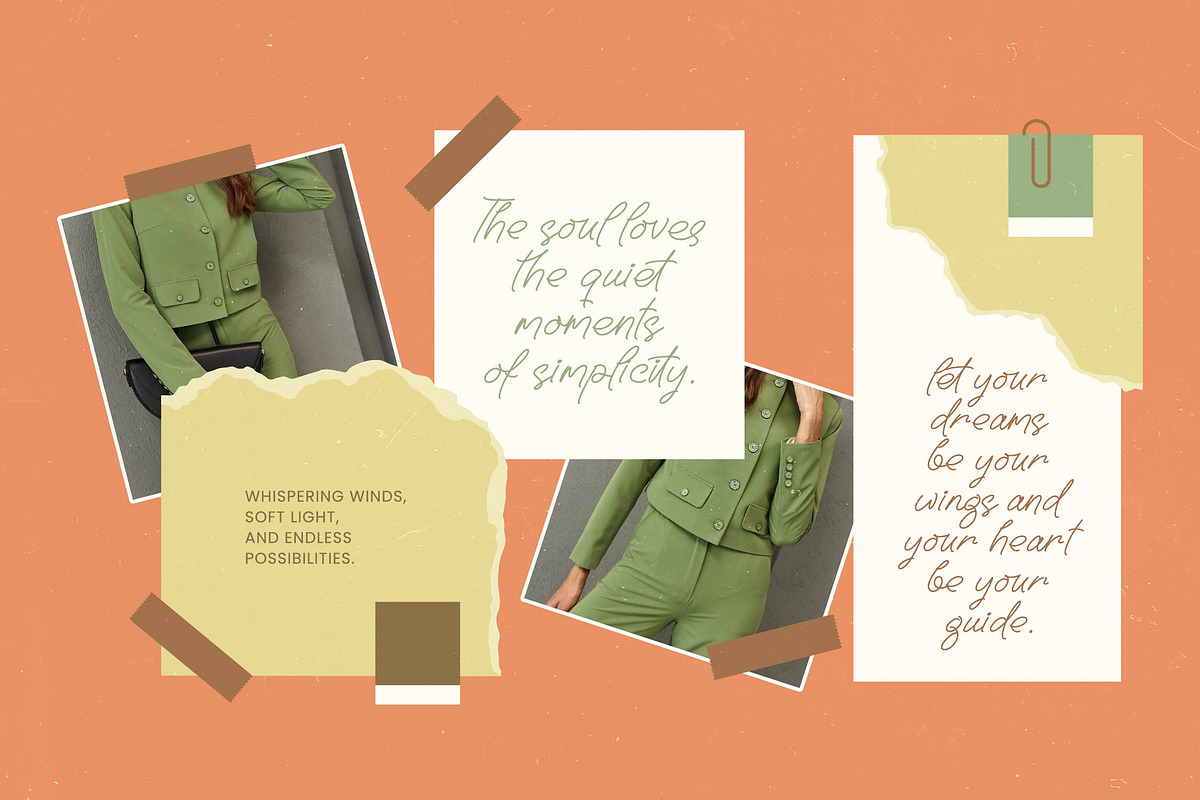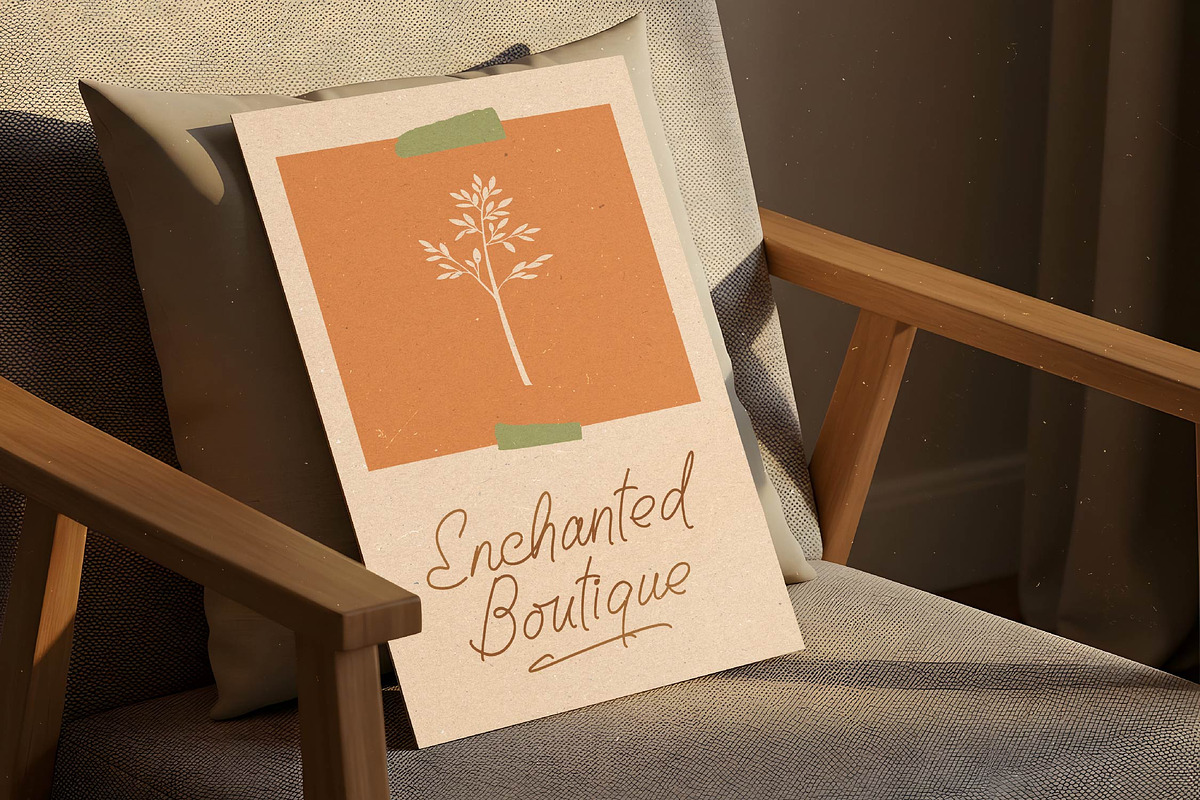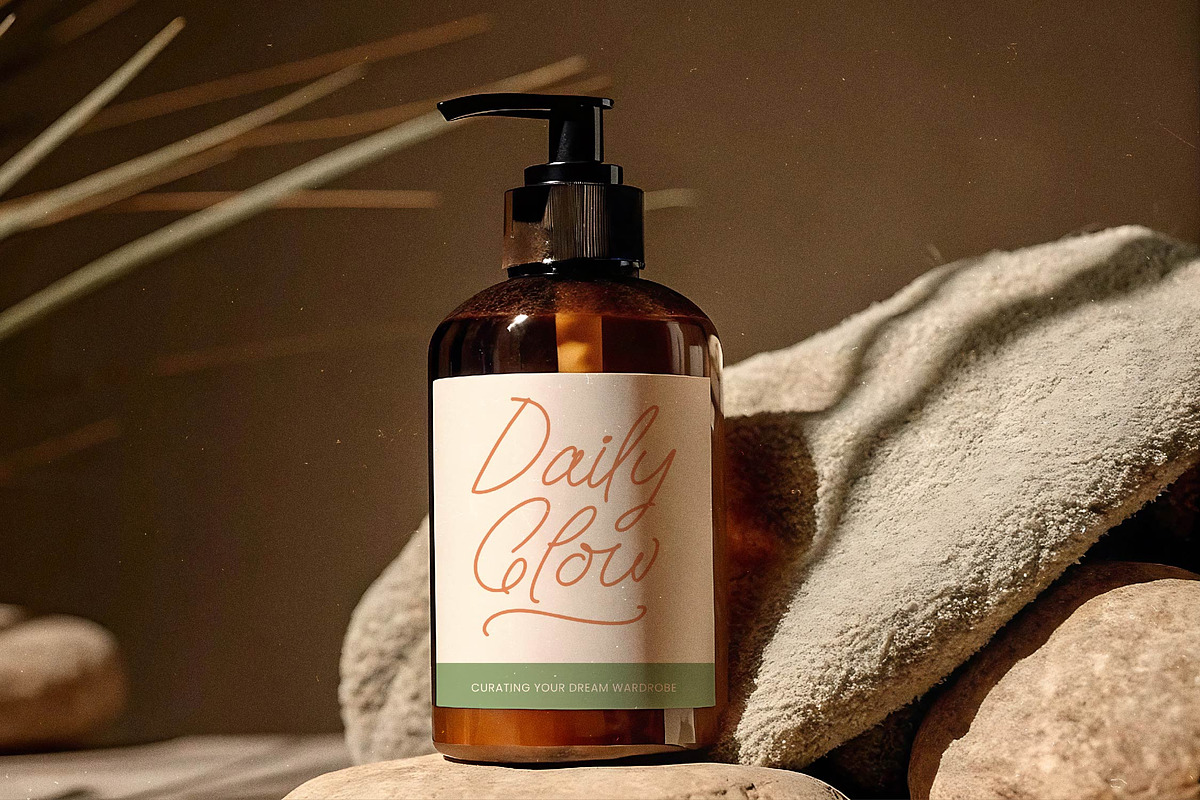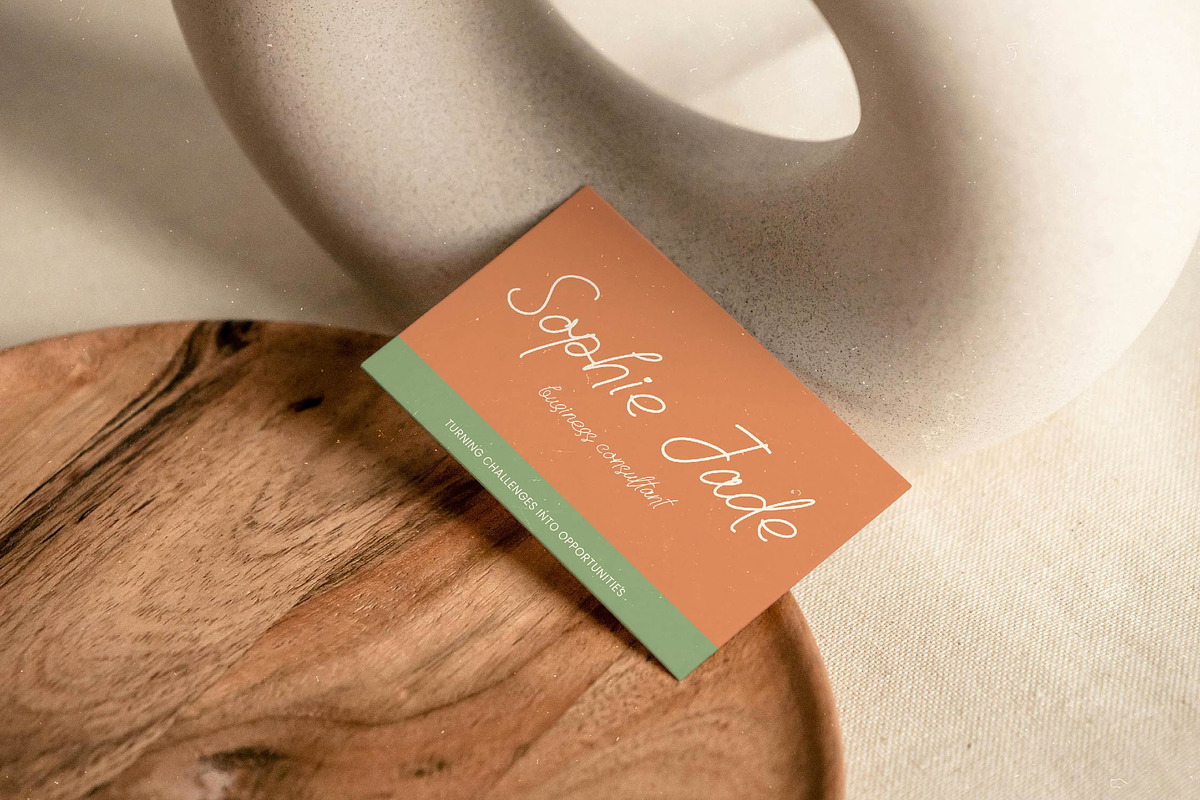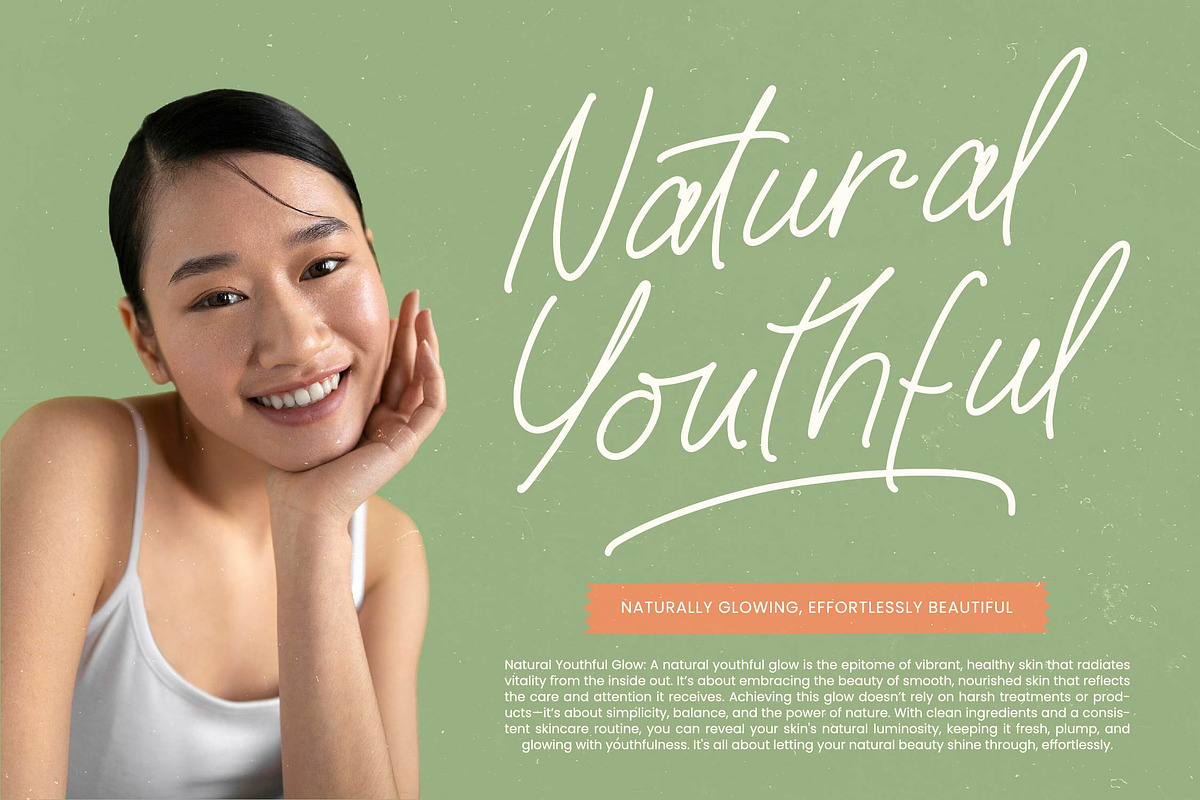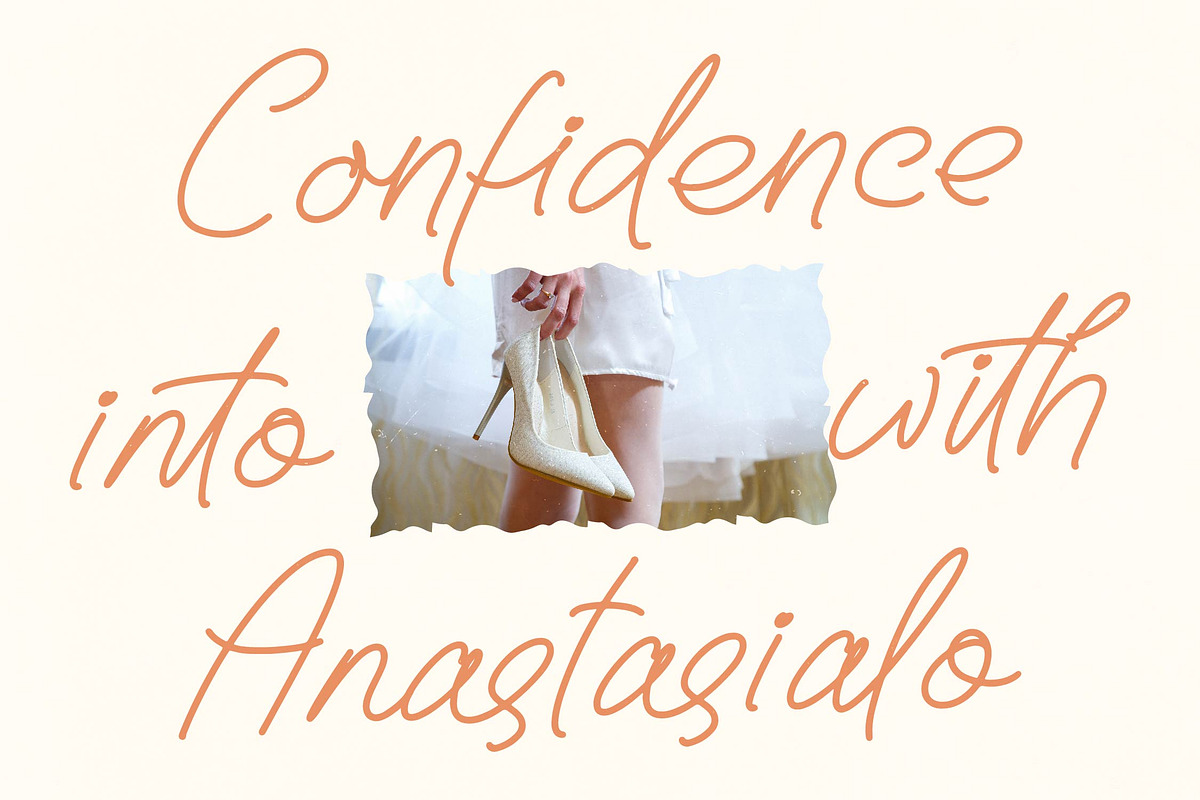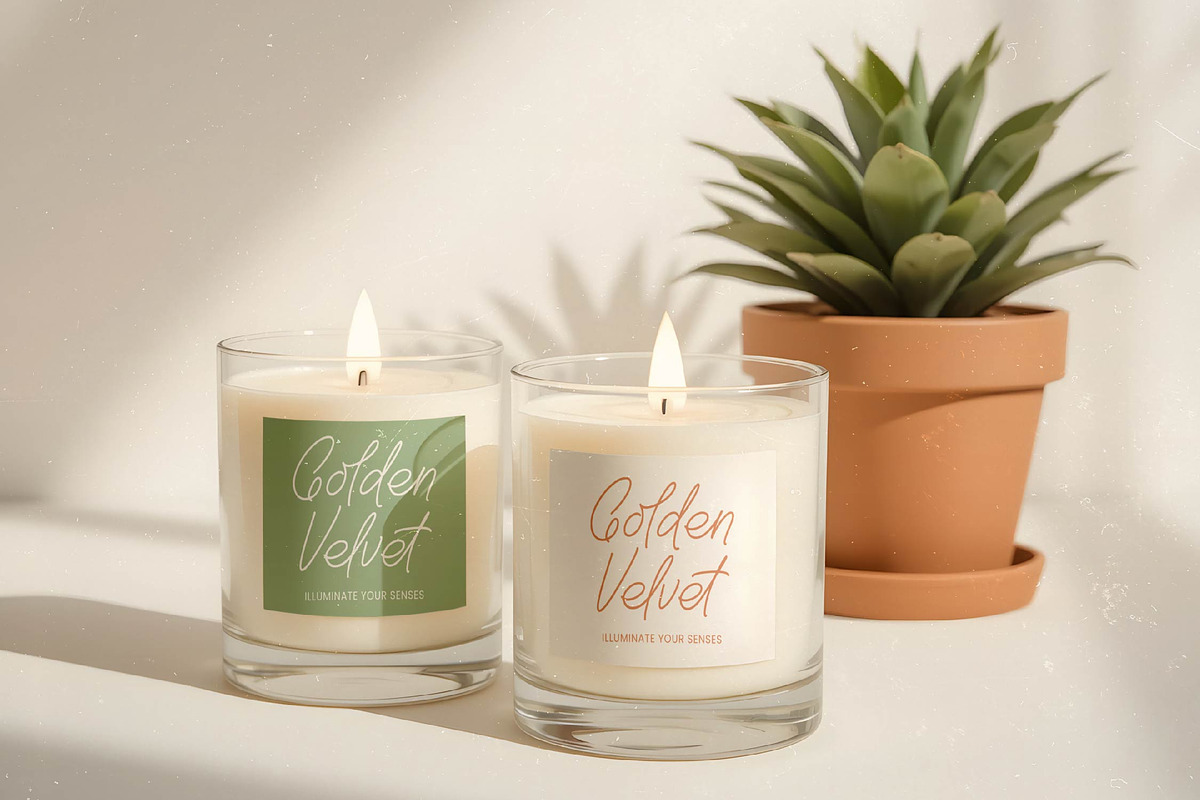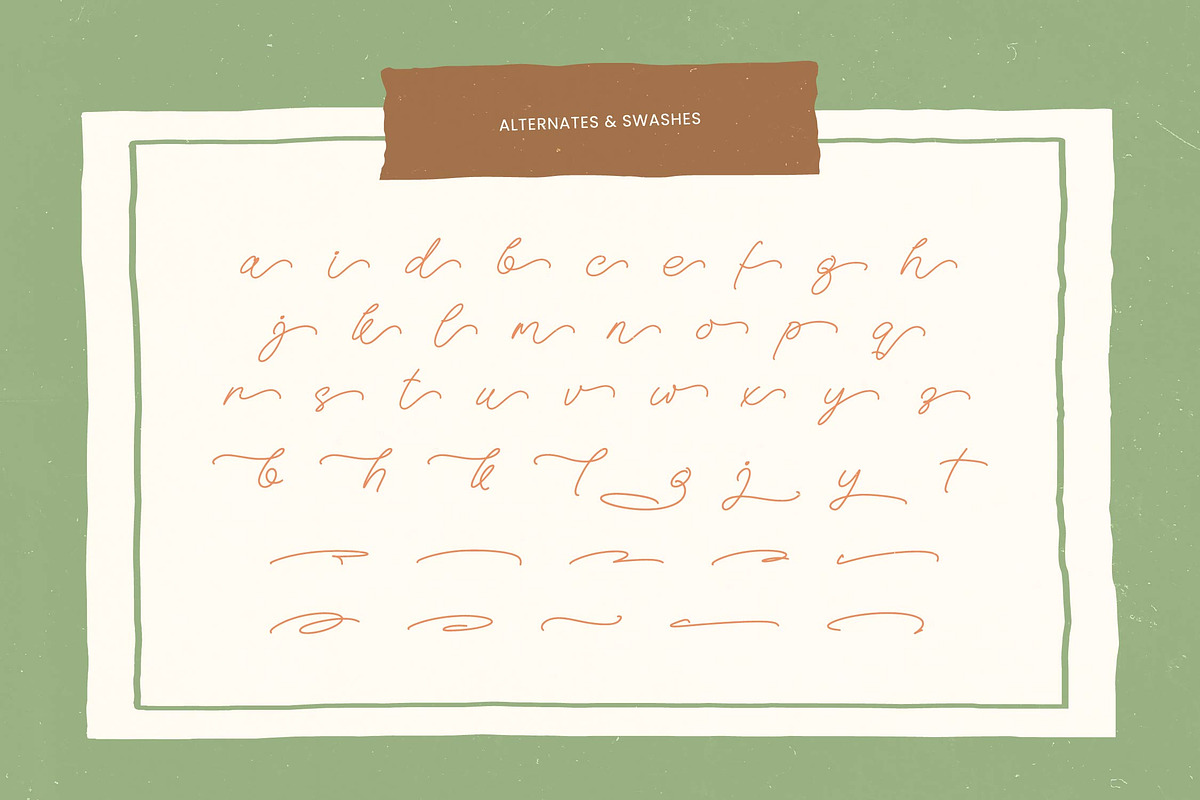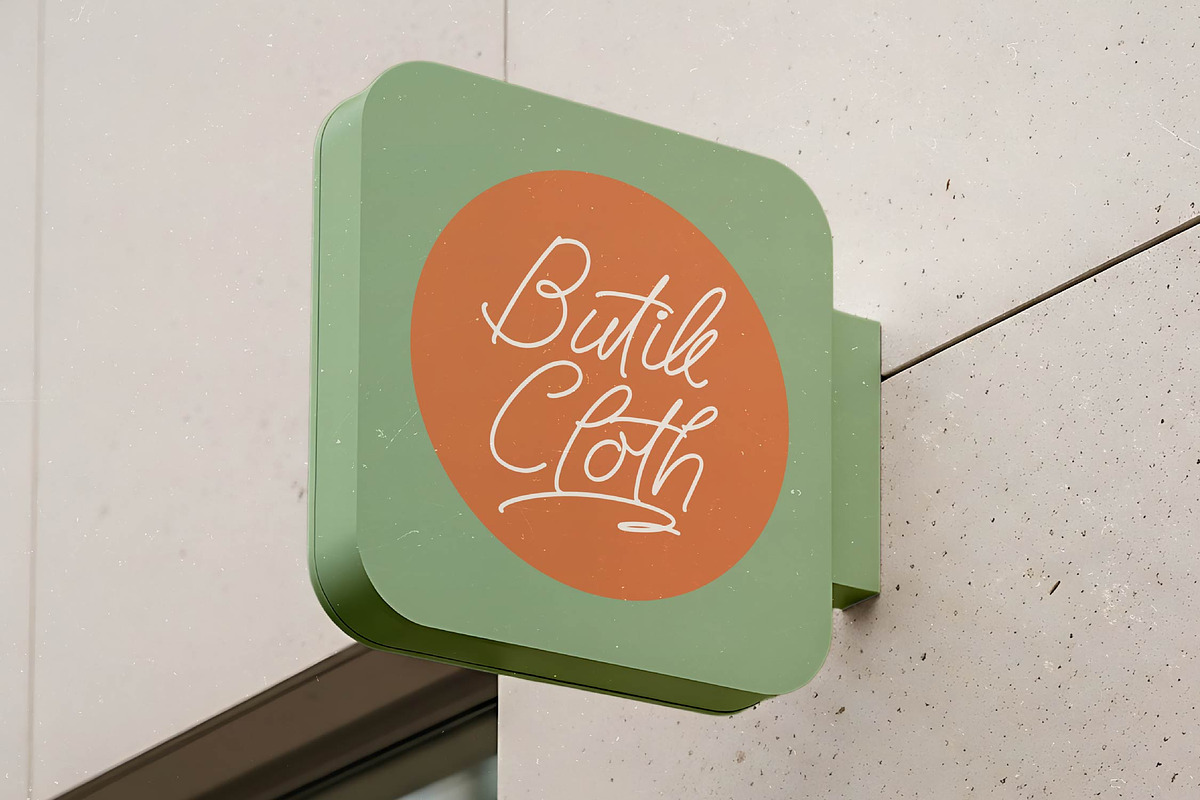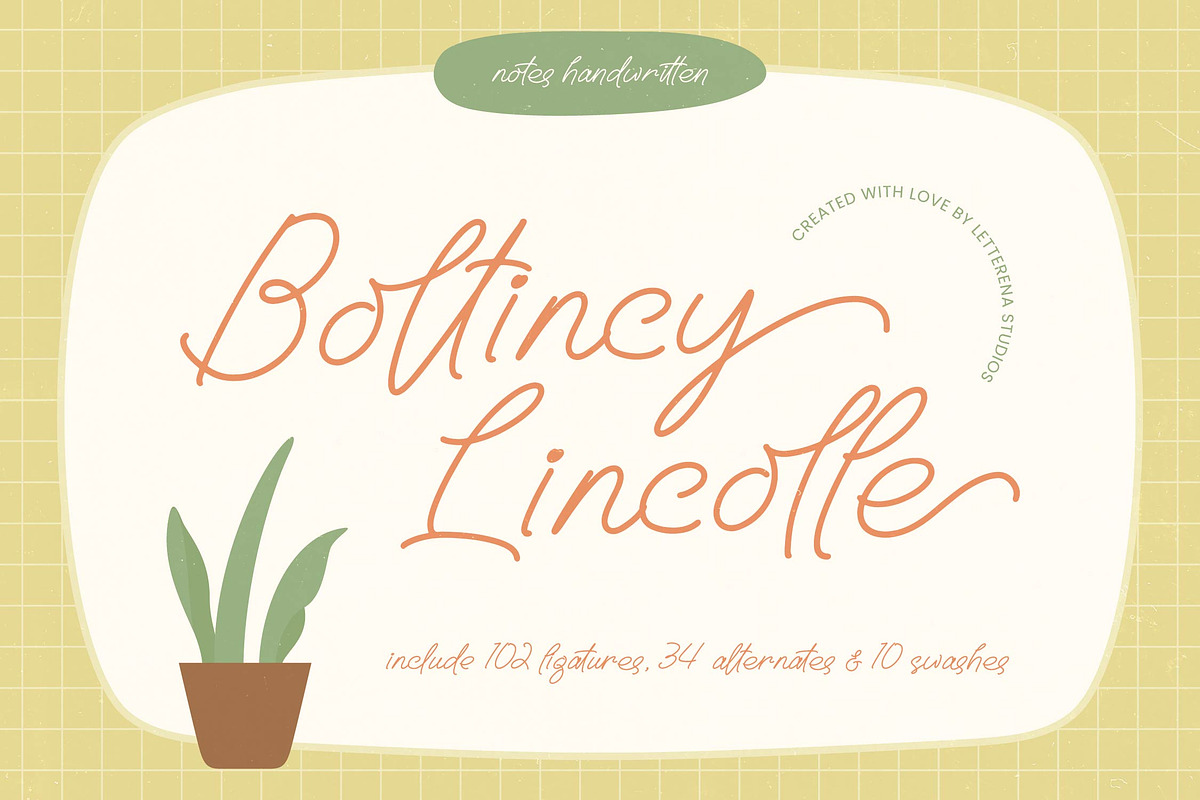
Boltincy Lincolle Notes Handwritten
Boltincy Lincolle - Notes Handwritten , Boltiney Lincolle captures the effortless beauty of a personal journal, transforming digital compositions into intimate handwritten masterpieces. This typeface flows with a natural grace that invites the reader into a world of sophisticated yet approachable design.
Inspired by the rhythmic motion of a pen on textured paper, the font evokes a sense of nostalgia for handwritten correspondence. Its thin strokes and airy loops create a breezy, organic atmosphere that is perfect for lifestyle brands and artisanal products.
While it maintains a fluid script structure, it carries the weight and presence of a modern serif display, offering the same luxury typography appeal found in a high-contrast serif. It is the ultimate editorial font for creators who want to deliver a significant branding impact through human-centric design.
This typeface perfectly anticipates the modern serif trend by offering a softer, more fluid alternative to traditional editorial display fonts. It stands at the forefront of character-driven typography, providing a unique visual identity that breaks the monotony of standard digital layouts.
From high-end logo design to cohesive visual branding, this font excels in editorial spreads and luxury packaging. It is an exquisite choice for wedding stationery and fashion lookbooks, where elegance and a personal touch are required to tell a brand's story.
Technical excellence is at the heart of this package, featuring 102 ligatures, 34 alternates, and 10 decorative swashes for custom flourishes. It also includes comprehensive multilingual support and international characters, ensuring your creative vision remains consistent across global markets.